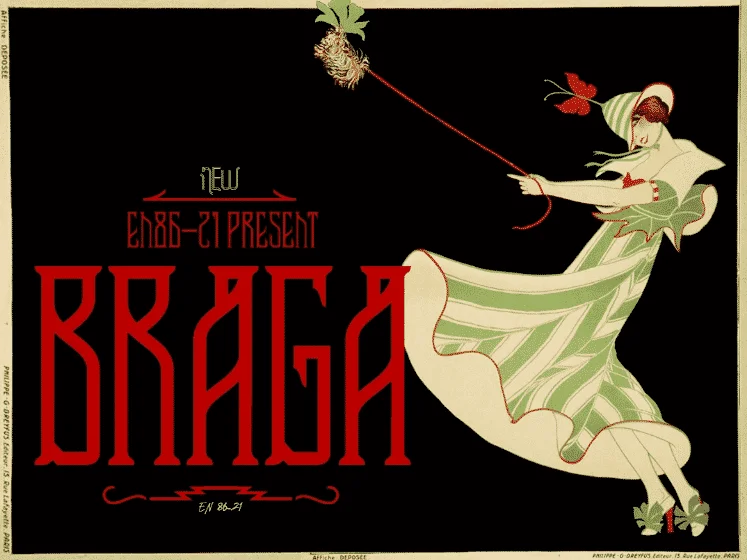
Braga Display Font
Braga Display Font is perfect for a wide range of design projects including luxury branding, high-fashion logos, magazine headlines, premium packaging, sophisticated advertising campaigns, elegant posters, upscale restaurant menus, and striking editorial layouts. Its commanding character makes it an exceptional choice for projects that require dramatic impact and refined visual sophistication at large sizes.
What makes Braga Display Font exciting is its stunning ability to command attention while maintaining impeccable elegance and refinement. The font features bold, meticulously crafted letterforms with distinctive details optimized specifically for display applications, creating maximum visual impact without sacrificing sophistication. Its powerful presence makes it perfect for brands and projects that want to project confidence, luxury, and unmistakable style through typography that refuses to be overlooked.
Braga Display Font comes in multiple font families including Regular, Bold, Light, Black, Condensed, and various stylistic alternates. These diverse options provide designers with creative flexibility to adjust visual weight and proportion while maintaining the font's characteristic drama and elegance across different design contexts and applications.